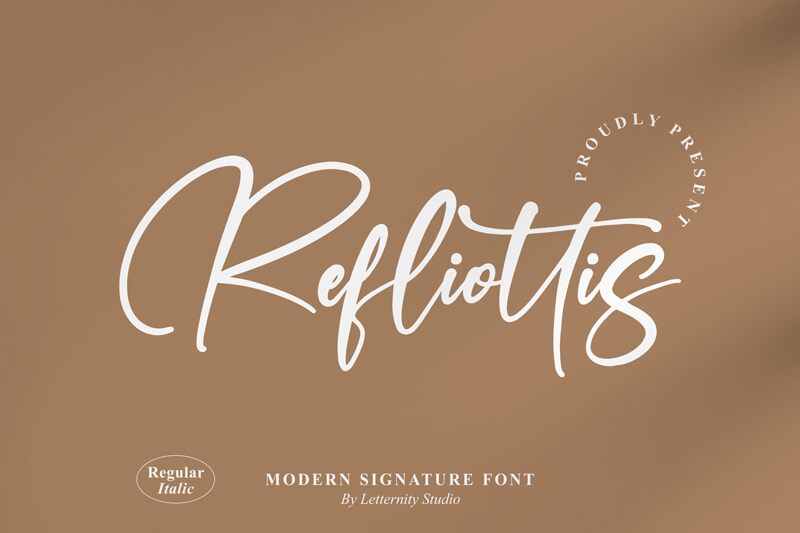
Refliottis font by Letterena Studios is an expressive handwritten free font that bends towards a signature aesthetic. Featuring a modern look with classic values, each character forms into the next with soft endings and a smooth flow. It’s a cursive pen-like design with lots of personality ideal for conveying messages that appear friendly and authentic.
Sketched by hand, the font evokes an elegant touch to different applications. Logos, posters, invitations, ads, and packaging projects can find charm in Refliottis. Use also for personal digital needs such as social media posts, or motivational quotes over images.